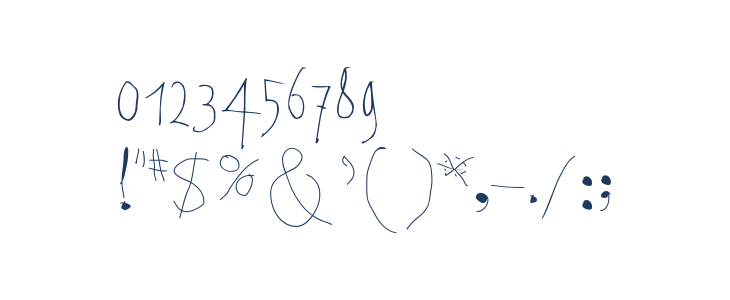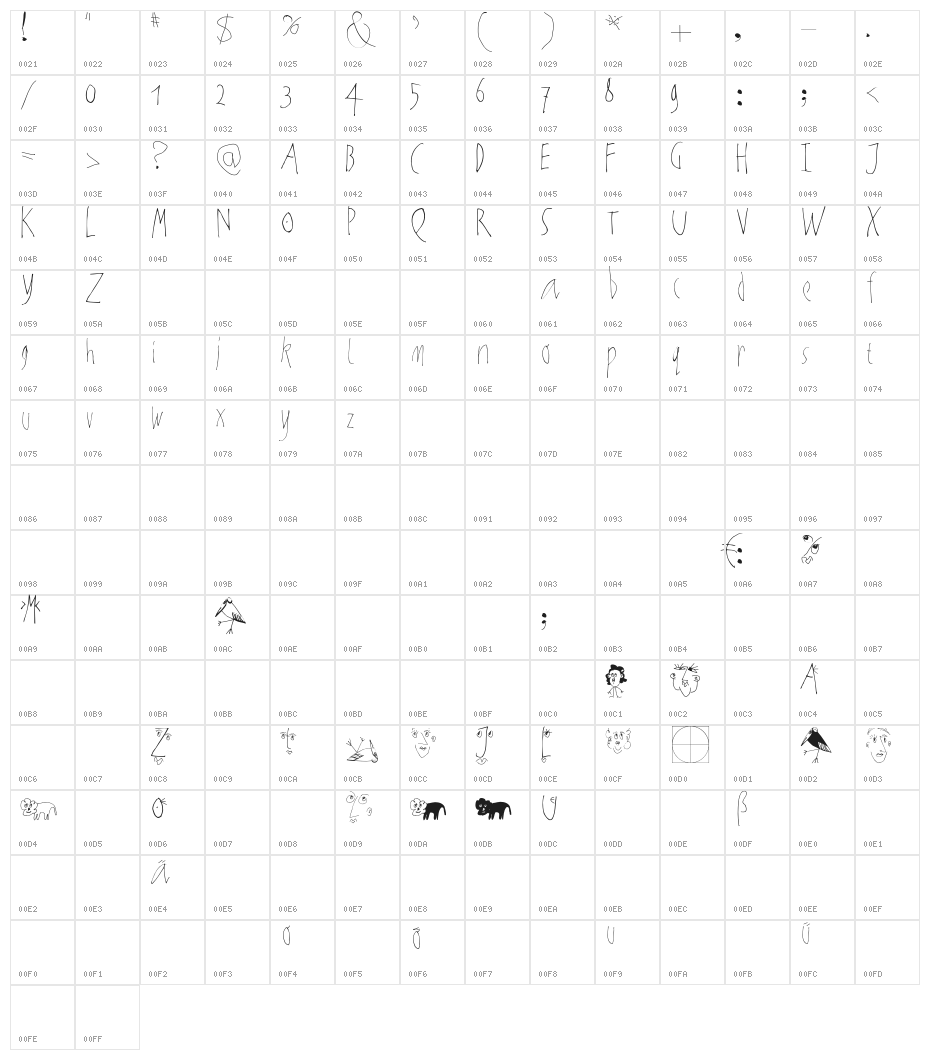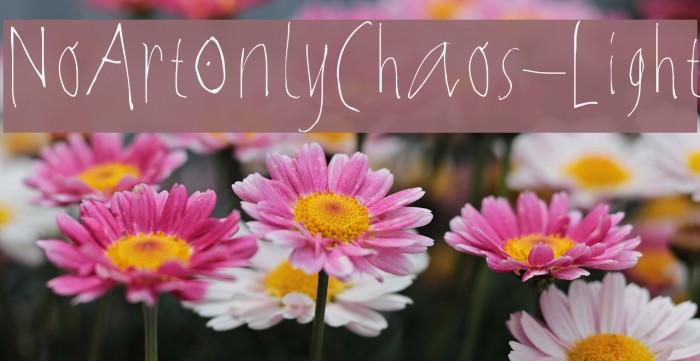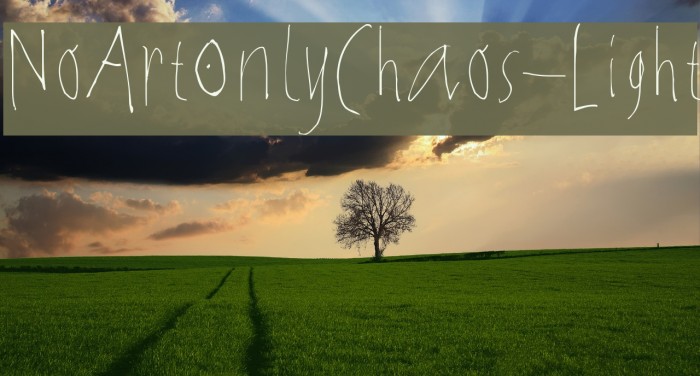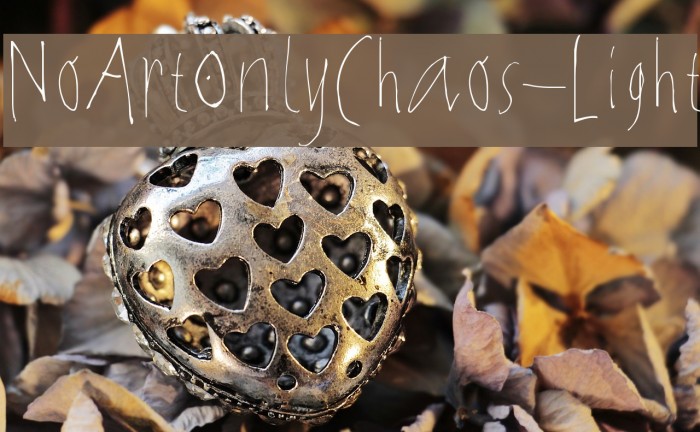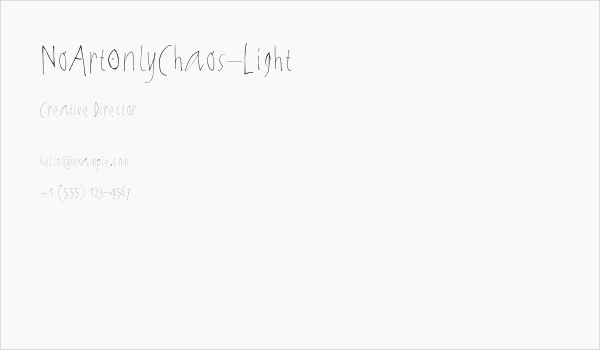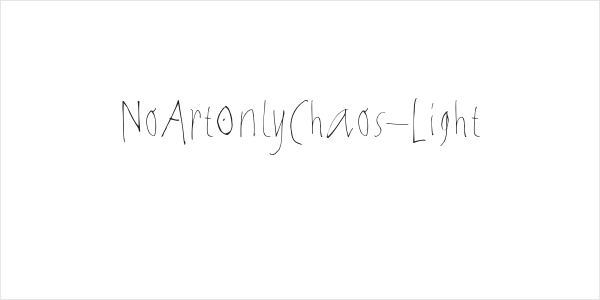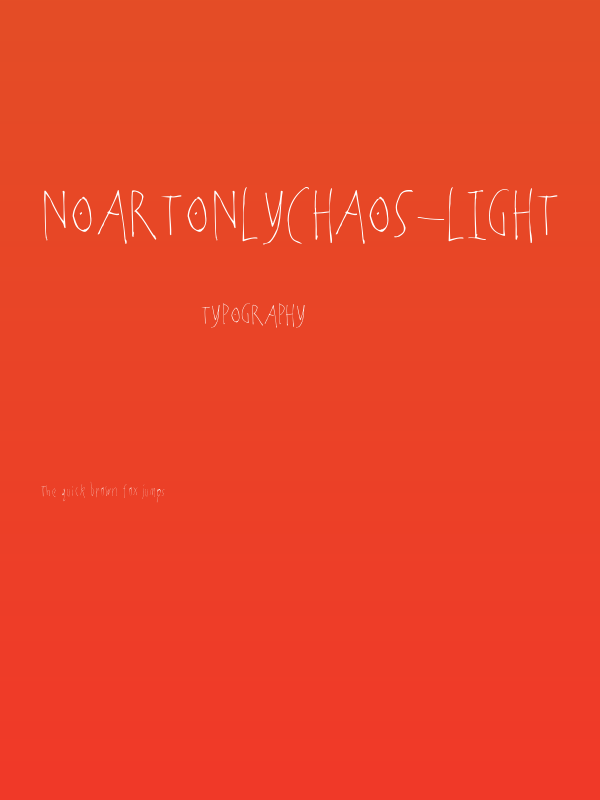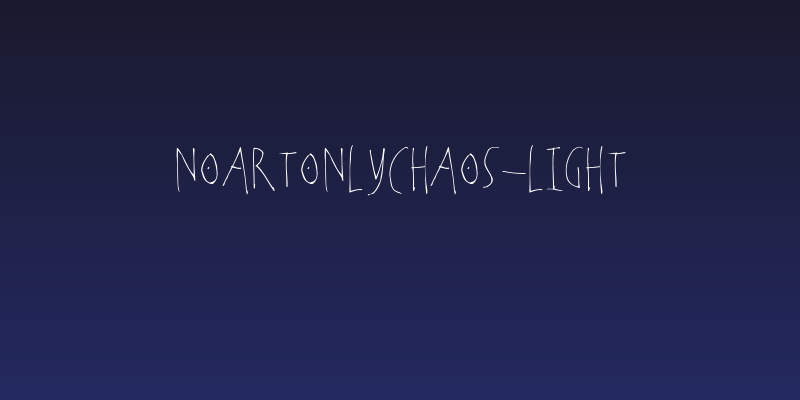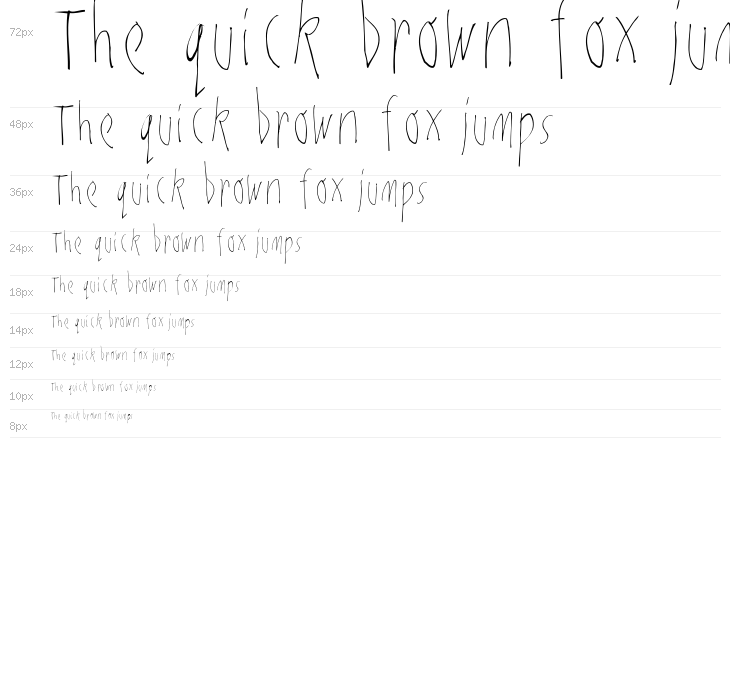
NoArtOnlyChaos-Light Font
NoArtOnlyChaos-Light Description
This font exhibits a playful and whimsical handwritten style, characterized by its irregular and slightly chaotic strokes. The letters are tall and narrow, with varying line thickness that adds a dynamic and lively feel. The uppercase and lowercase letters maintain a consistent style, with a quirky and artistic flair. The numbers and special characters follow the same playful aesthetic, making the font suitable for creative and informal projects. Its unique appearance makes it stand out, offering a sense of individuality and creativity.